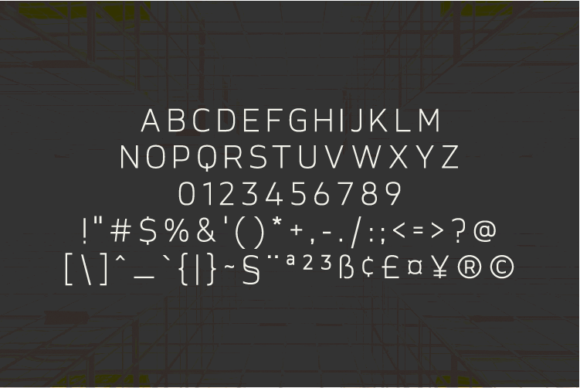
Introducing Arkqunie Light Font: Elevate Your Design with a Casual and Geometric Sans Serif Typeface
Are you a designer or crafter looking for a versatile font to elevate your creative projects? Look no further than Arkqunie Light Font, a casual and geometric sans serif typeface designed to bring maximum flexibility to your designs. With its unique features and clean lines, Arkqunie is perfect for a wide range of applications, from headlines and postcards to business cards, logos, and more.
What Makes Arkqunie Stand Out?
Arkqunie’s design is characterized by its special features in every corner of each letter, making it a standout in the world of typography. Its geometric sans serif design gives it a modern and sleek look, while its casual feel makes it approachable and friendly. This combination makes Arkqunie perfect for designers and crafters who want to add a touch of personality to their work.
Endless Possibilities with Arkqunie
One of the best things about Arkqunie Light Font is its versatility. Its clean lines and simple design make it easy to read and understand, while its unique features add a touch of personality to any text. This means you can use Arkqunie for a wide range of projects, including:
- Headlines: Make a bold statement with Arkqunie’s geometric sans serif design.
- Postcards: Add a personal touch to your postcards with Arkqunie’s casual feel.
- Business Cards: Stand out from the crowd with Arkqunie’s unique features.
- Logos: Create a memorable brand identity with Arkqunie’s modern design.
- Letterheads: Add a touch of professionalism to your correspondence with Arkqunie.
- Magazines: Use Arkqunie to add a modern twist to your magazine layouts.
- Posters: Make a statement with Arkqunie’s bold and geometric design.
Why Choose Arkqunie Light Font?
So why should you choose Arkqunie Light Font for your next project? Here are just a few reasons:
- Flexibility: Arkqunie’s design makes it perfect for a wide range of applications.
- Uniqueness: Arkqunie’s special features in every corner of each letter make it a standout in the world of typography.
- Readability: Arkqunie’s clean lines and simple design make it easy to read and understand.
- Personality: Arkqunie’s casual feel adds a touch of personality to any text.
Tips for Using Arkqunie Light Font
Here are a few tips for getting the most out of Arkqunie Light Font:
- Experiment with different sizes: Arkqunie’s design looks great in a wide range of sizes, from small captions to large headlines.
- Play with color: Arkqunie’s simple design makes it easy to use with a wide range of colors and backgrounds.
- Mix and match: Try pairing Arkqunie with other fonts to create a unique and interesting look.
Arkqunie Light Font is a versatile and unique typeface that’s perfect for designers and crafters looking to elevate their creative projects. With its geometric sans serif design, casual feel, and special features in every corner of each letter, Arkqunie is sure to make a statement. Whether you’re working on a headline, postcard, business card, or logo, Arkqunie Light Font is the perfect choice.